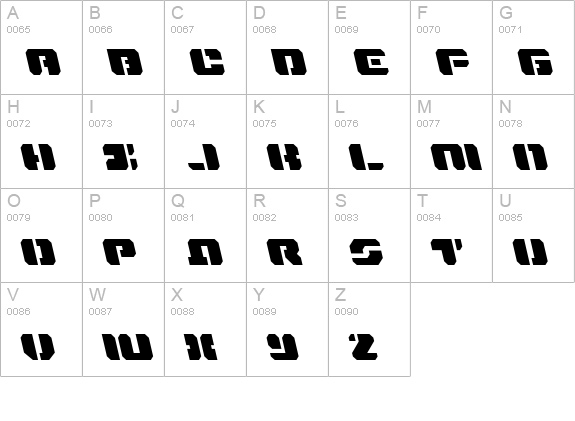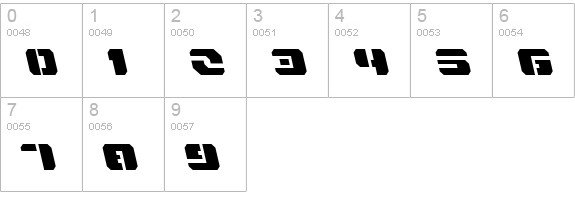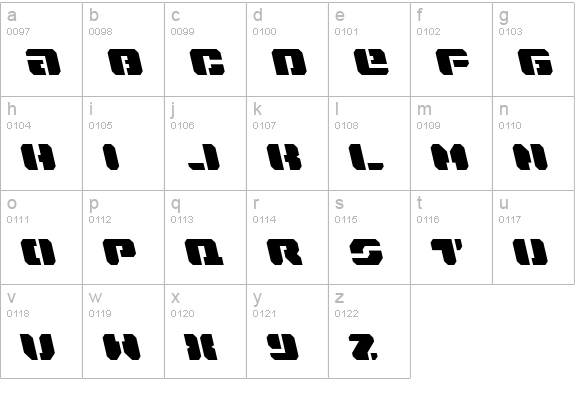
Dan Stargate Leftalic font is a modern and stylish typeface that exudes a sense of futuristic sophistication. Its sleek, elongated letterforms have a unique twist that sets it apart from traditional fonts. The slanted, italic design gives this font a dynamic and energetic feel, making it perfect for projects that require a touch of edginess. This font is versatile and can be used for a wide range of design projects, from logos and branding to posters and websites. Its clean lines and futuristic aesthetic make it a great choice for any modern design application. Best of all, Dan Stargate Leftalic font is available for free download at FontsMarket.com. This means you can easily access and use this stylish font in your projects without breaking the bank. Don't miss out on this opportunity to add a touch of contemporary flair to your designs with Dan Stargate Leftalic font.